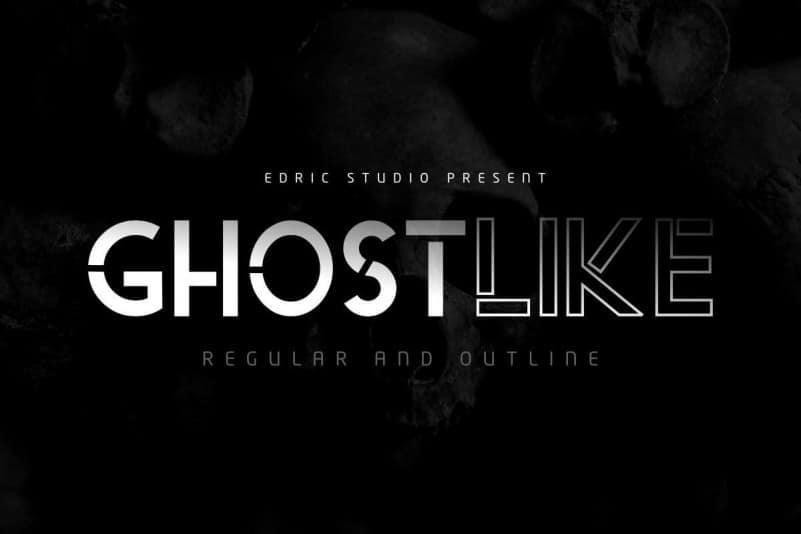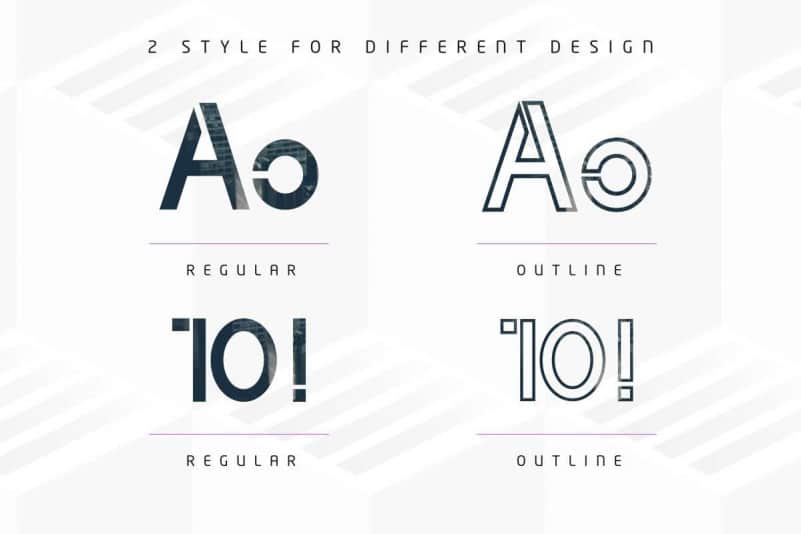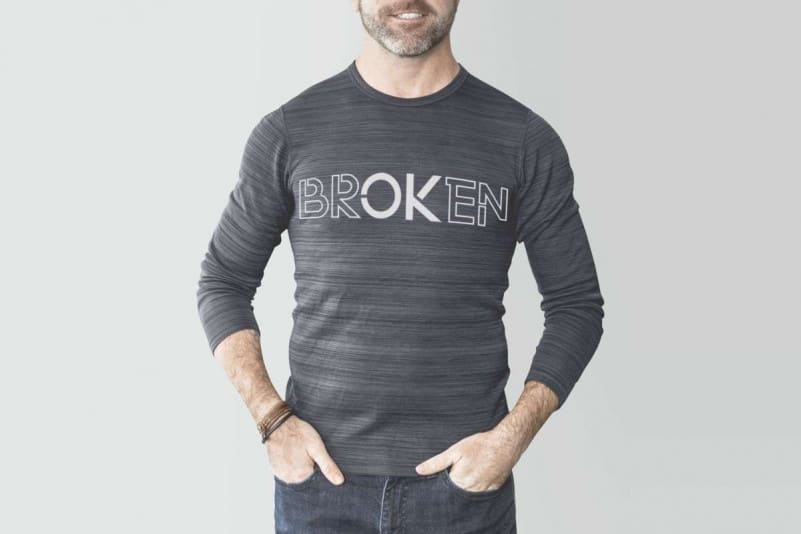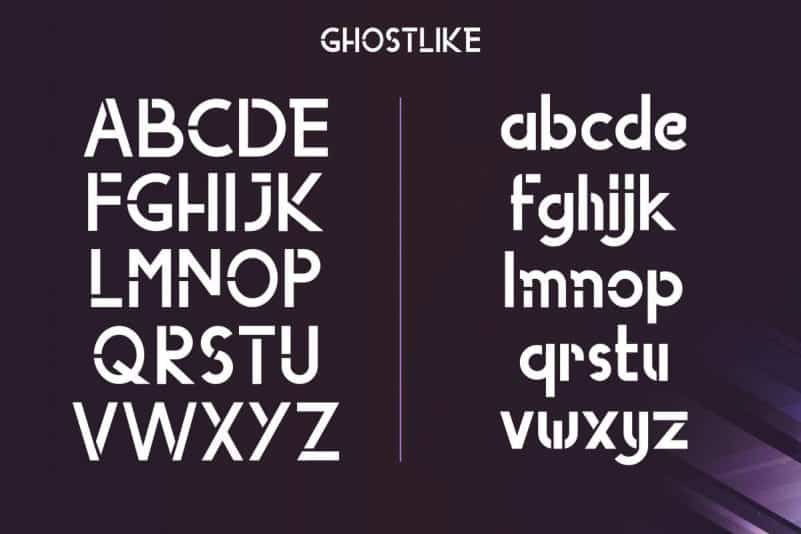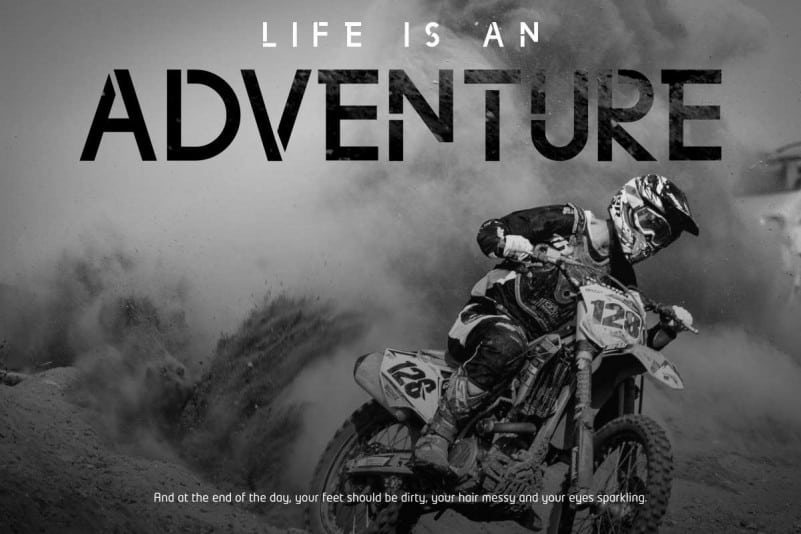
Ghostlike Sans Serif Font
Ghostlike Sans Serif Font is an exclusive furutistic sci fi typeface with modern style. This font has a stunning characters set, perfectly managed with well spaced and kerning. The theme style of this font will future, technology, casual, business, sci fi, negative spaced, science etc
Ghostlike Sans Serif Font will be great for any projects including : branding, logo, stationery, business card, signage, flyer, brochure etc. Almost all industries will be match for this typeface: consultant, real estate, architect, law firm, startup, tech company, gaming, spaceship, hotel, aviation etc